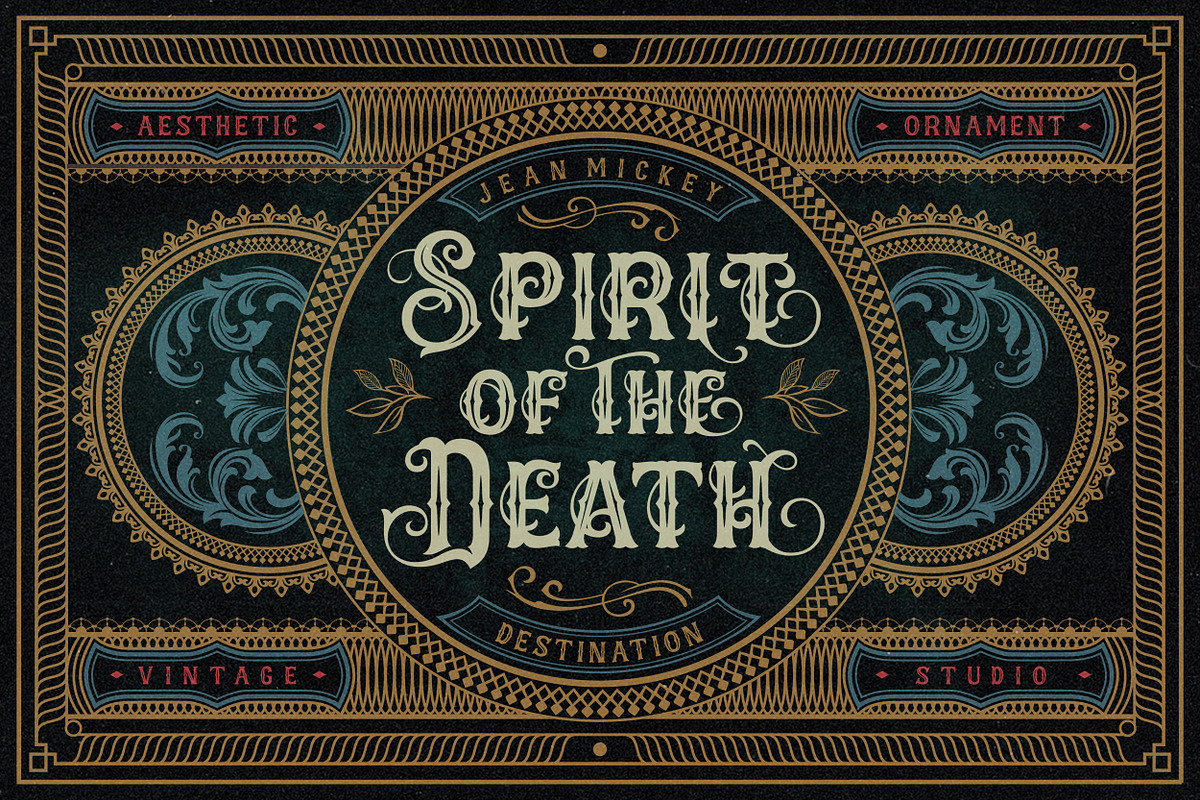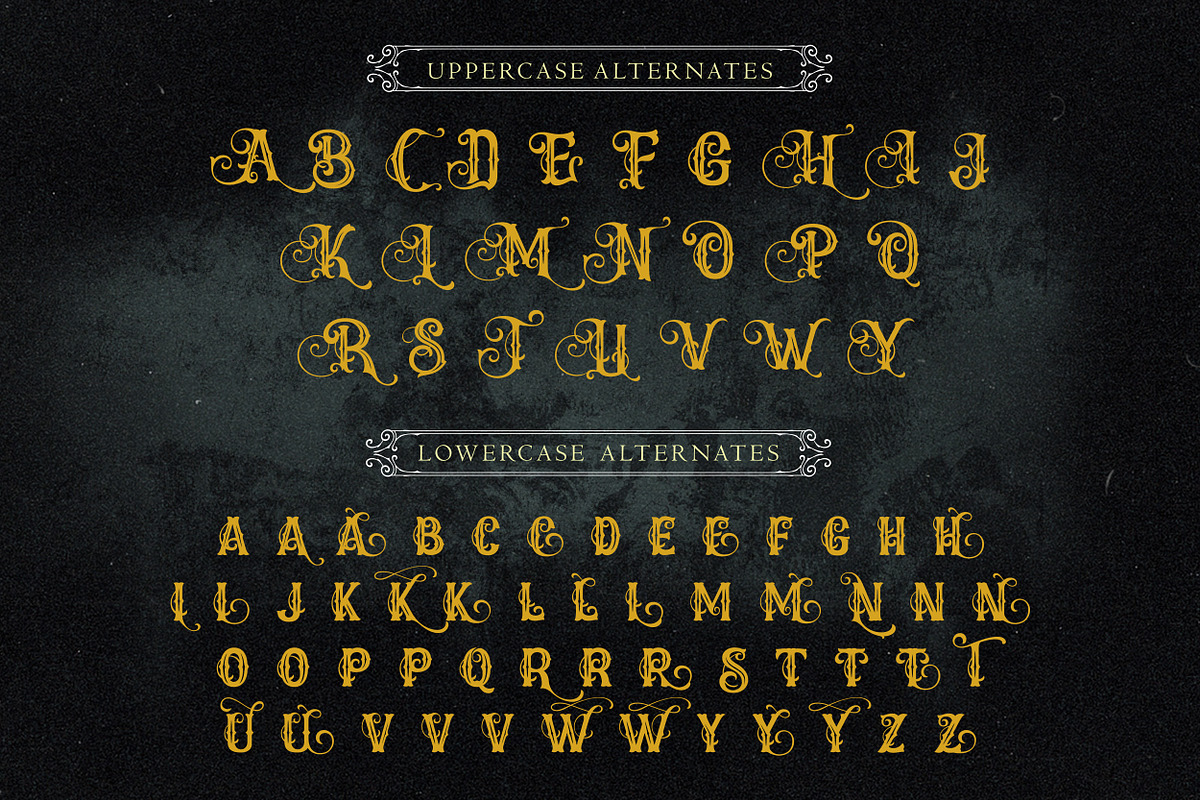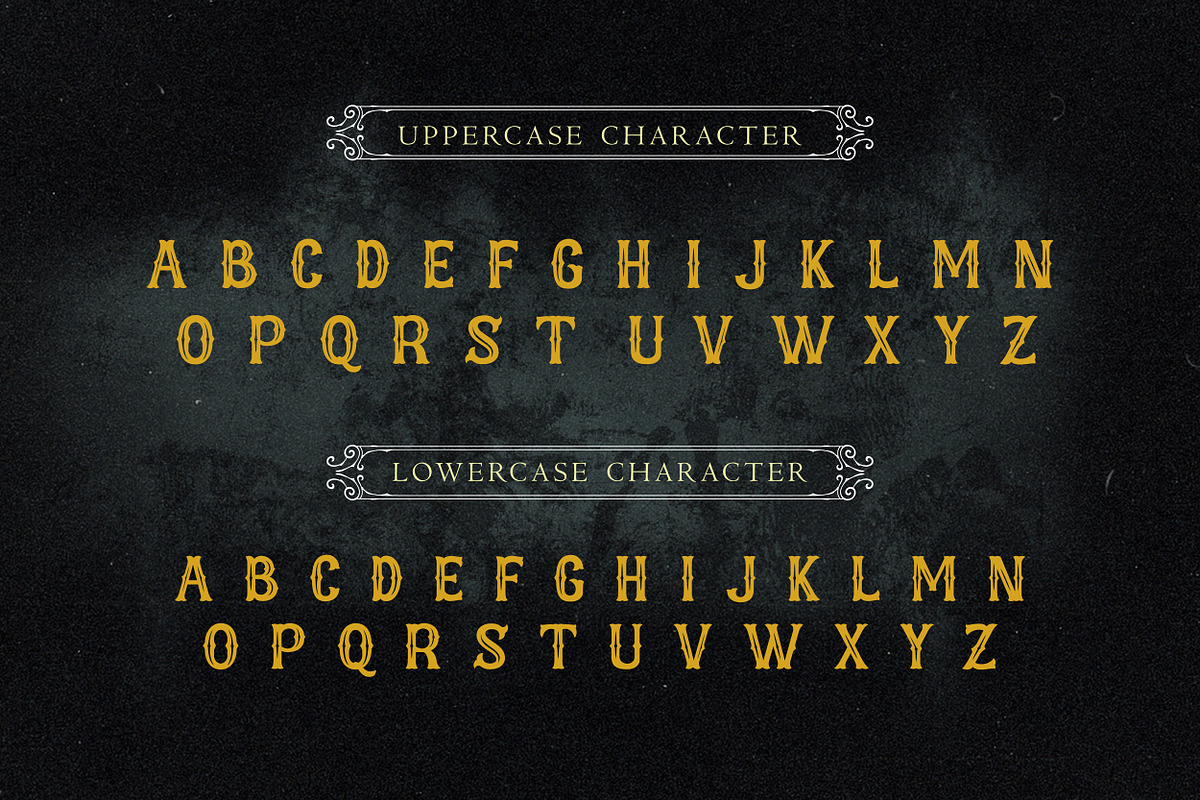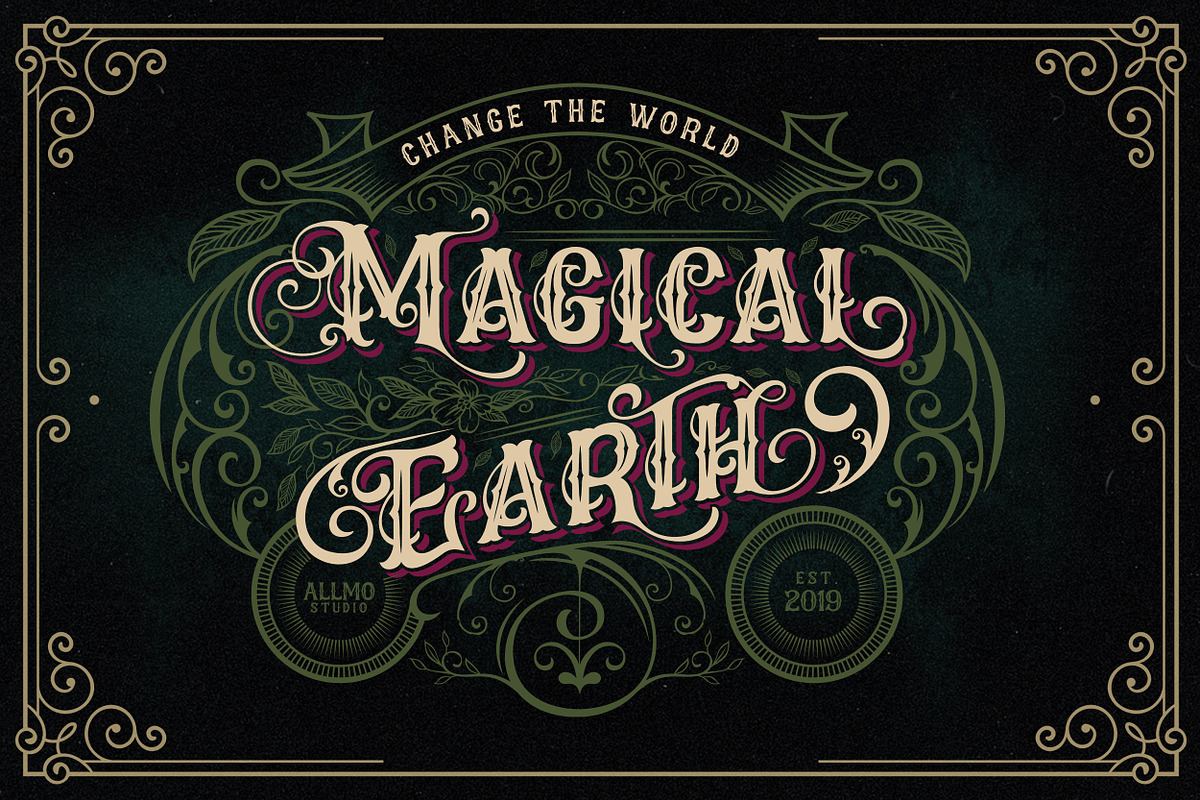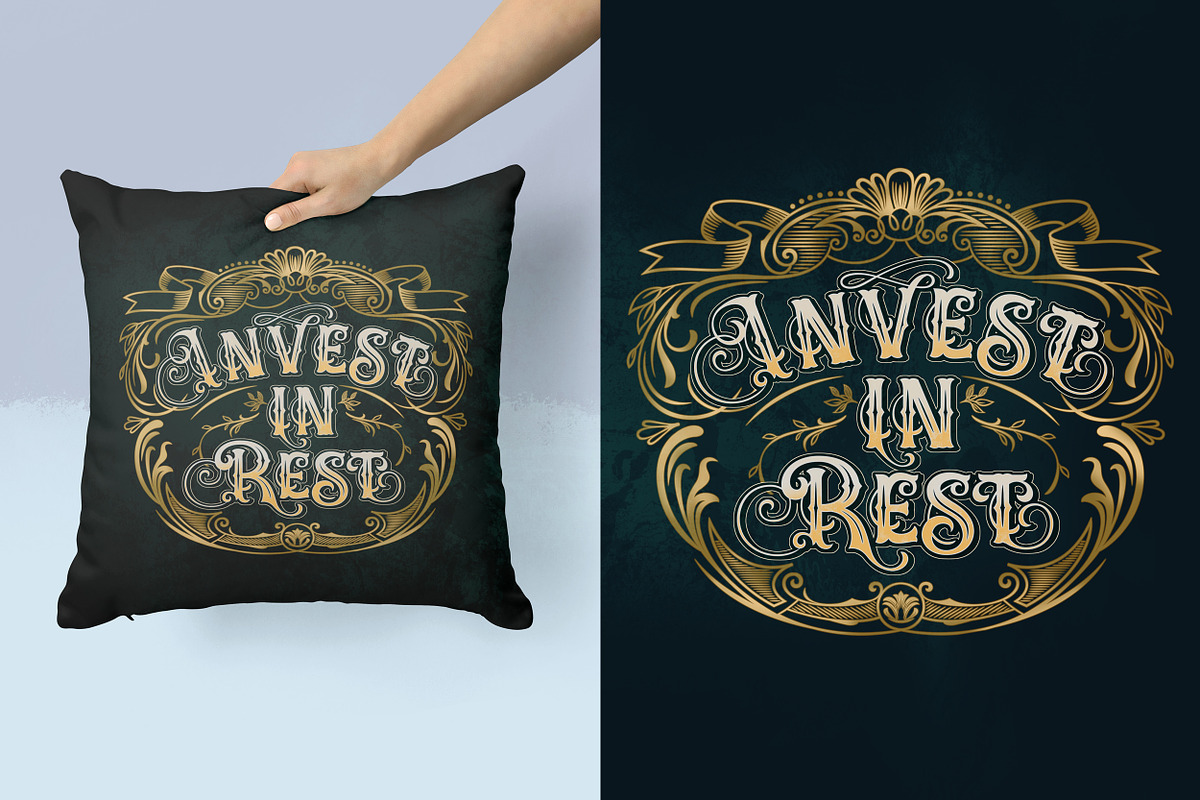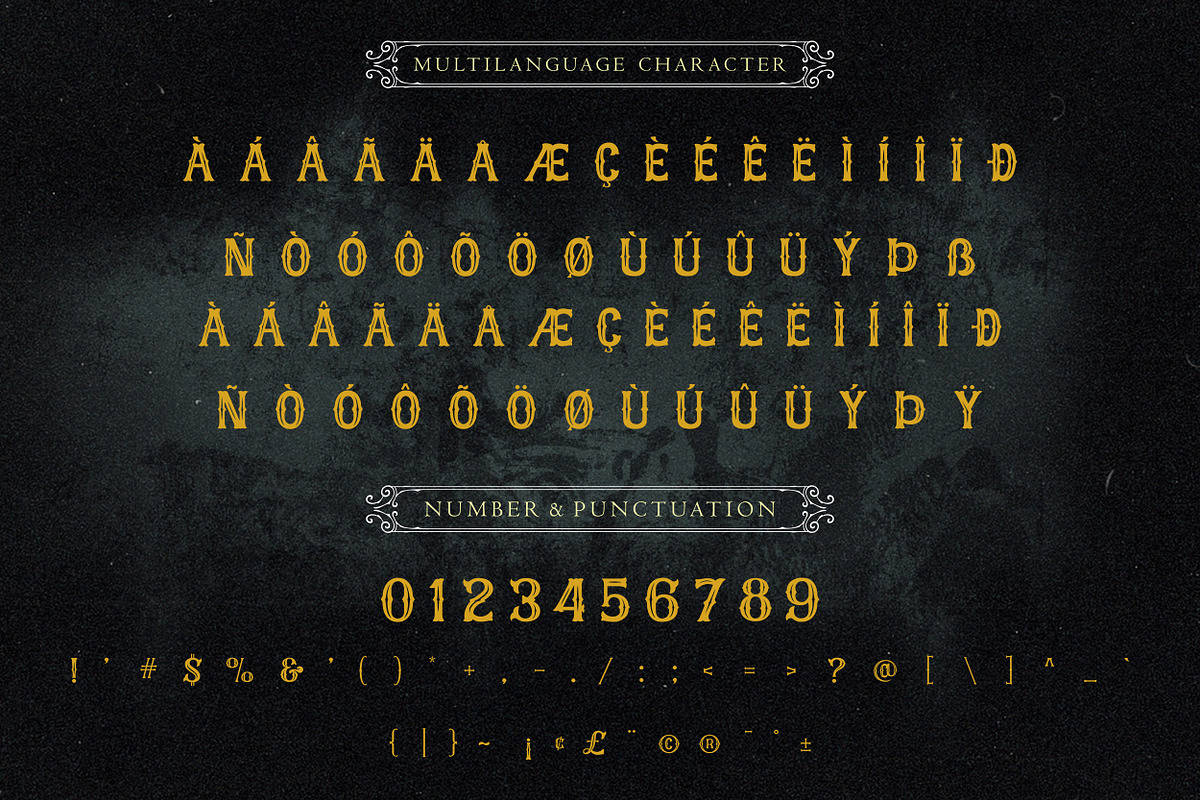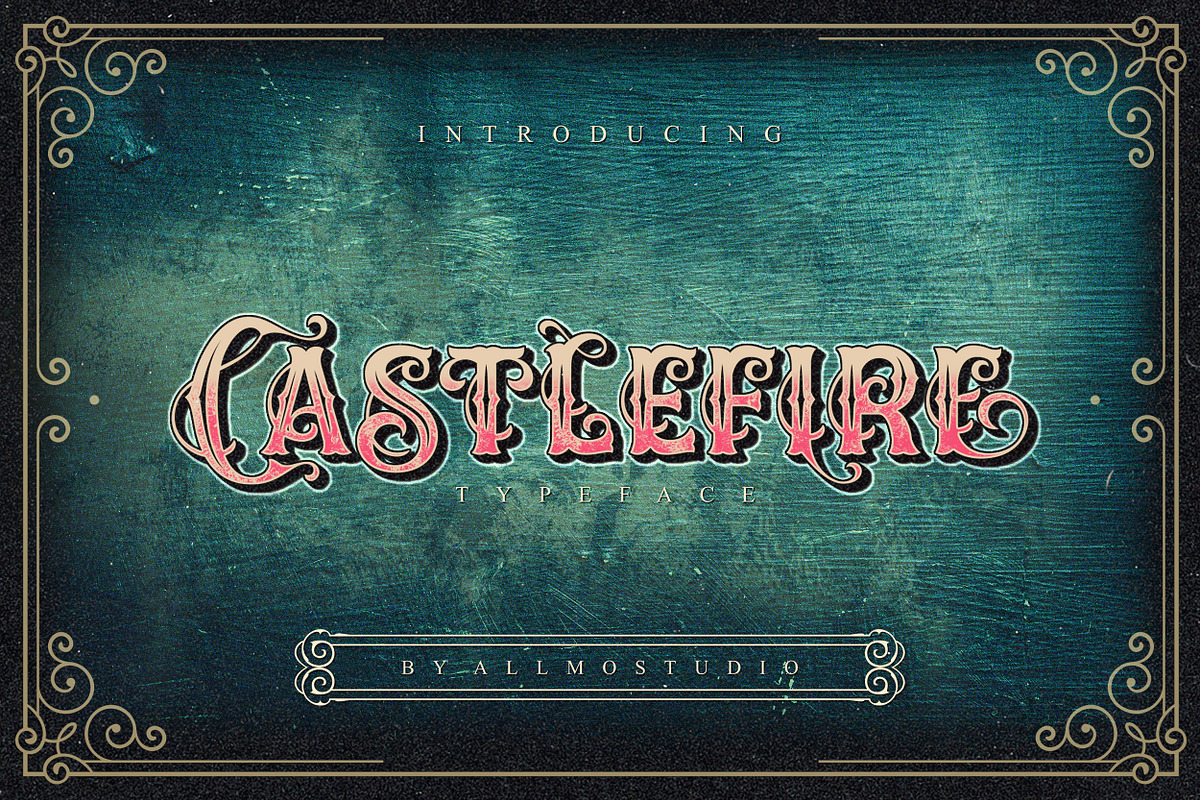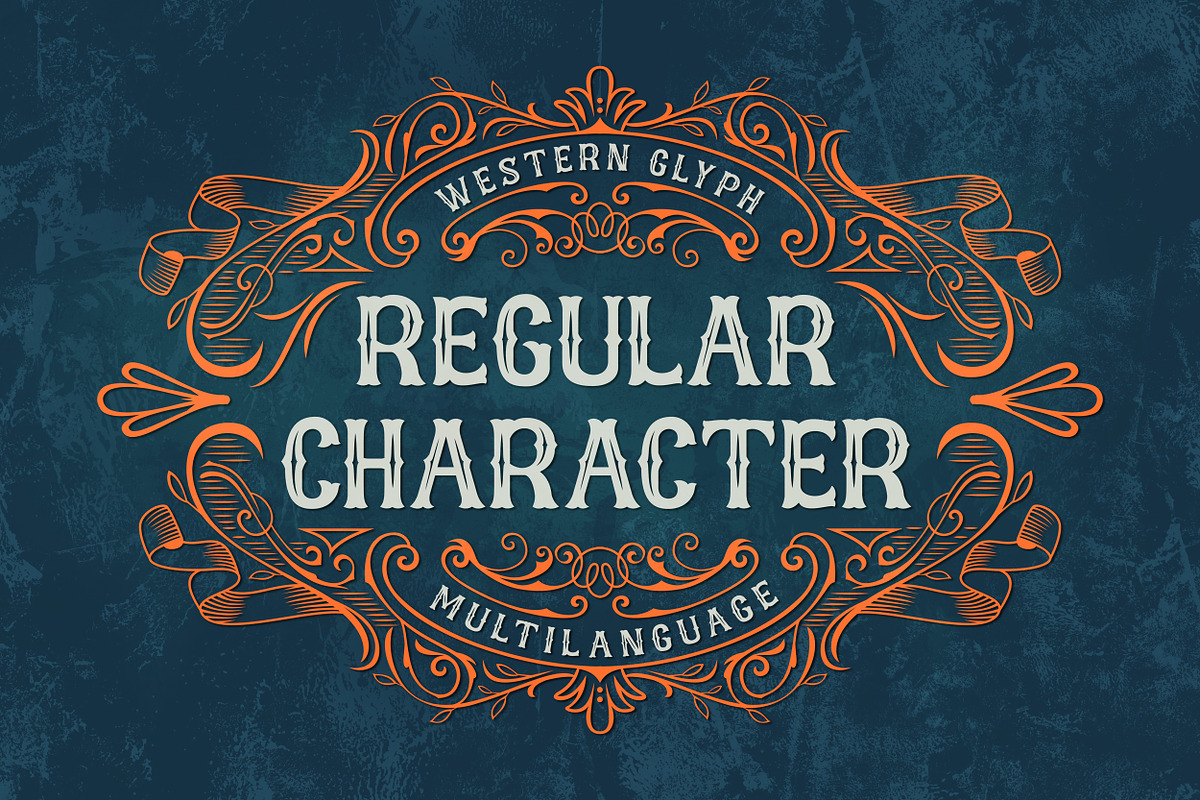
Castlefire Font
Castlefire font comes comes with uppercase, lowercase, numerals, punctuations and so many variations on each characters include opentype alternates. This font is great for your creative project such as logos, posters, invitations cards, packaging, badges, logotype, apparel design and Label. But don't let we restrain your imagination of course. Work well on both vintage and modern design. You can see our design implementation on preview images to check the result sample. Castlefire font looks Perfect for use in anything from Branding, Packaging, book cover and Etc.
Why Castlefire Font is worth a look
Castlefire Font by Allmostudio fits naturally into Branding, posters, packaging, typography.